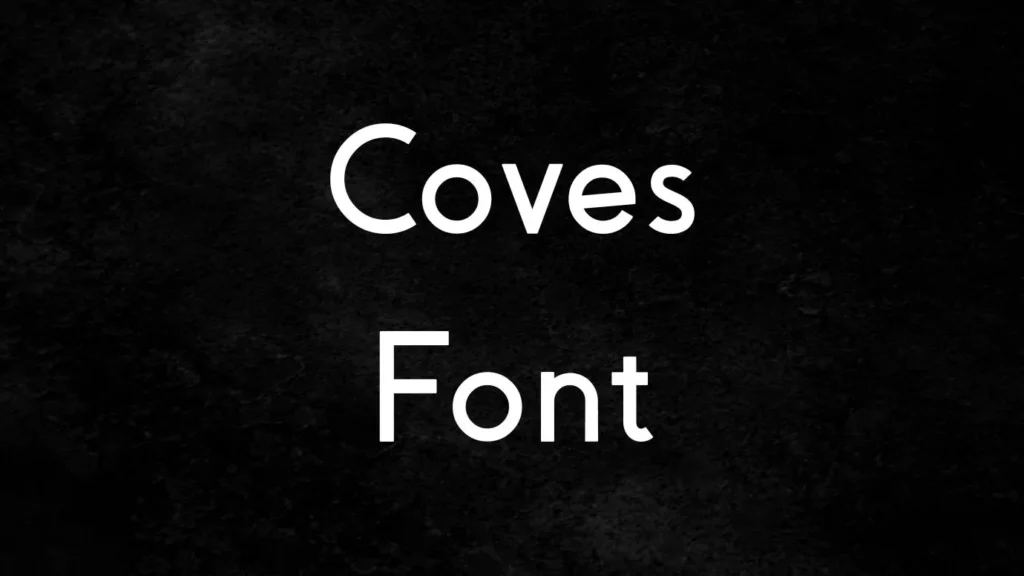
The Sans-serif typeface family includes the brand-new Coves Font. It is available in two weights, bold and light. Jack Harvatt, a well-known graphic designer, was in charge of its release. Your design text is more attractive due to its sharp features. This typeface has many wonderful benefits because of its bold appearance.
Each script and serif font required to complete each one is included in this collection. This is ideal for CSS use. Fully adjustable and supportive of the full range of alternatives and contexts for traditional aesthetics. For both their supporters and customers, it is a much-unexpected typeface.
Every character creates a stunning design and offers captivating designs. The fact that this elegant typeface is free for commercial projects is a plus. Every design will look good using this font family. This Sans-serif typeface is appropriate for use with the moderne sans font pairing.
Reasons to Use Coves Font
By using this typeface, you can produce intriguing designs. It works best for titles and headlines of many different kinds of content. This typeface is frequently used by web designers in a variety of contexts, including magazines, newspapers, logos, presentations, articles, and more.
Additionally, you are free to use its copy-and-paste feature in any project. It can be used for a variety of creative designs, including posters, logos, menus, resumes, themes, banners, brochures, and many more.
This typeface is perfect for video games, signage, editorials, advertising, social media posts, invoices, websites, magazines, and brands thanks to its bold design. You can easily compare this font with the helvetica font.
Uppercase and Lowercase Characters of Coves Font
This premium typeface Coves Font, which has a very impressive style, is shown in this image. It comes in a family of Sans-Serif fonts with unique characters and amazing glyphs.
Does Coves Font have any merit?
Yes, it is very popular in all markets and is part of a Sans-serif typeface with more than 100 characters and distinctive glyphs.
Where can Coves Font be used?
It is simple to use it to add a distinctive texture to any design, including cards, gift cards, business cards, and many others. Due to its bold style, you can use it in presentations and video games.
Is there a font that resembles the Coves Font?
Yes, there are numerous sans-serif fonts that are similar to the Coves font, including Voice Font, SkopexFont, Ministry Font, and Neosteel Font.
Coves Font is what kind of a font?
A brilliant designer named Jack Harvatt originally created this striking Sans-serif typeface. Both bold and light weights are available.